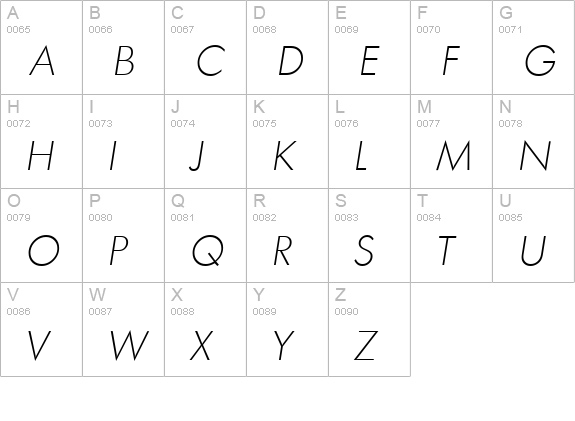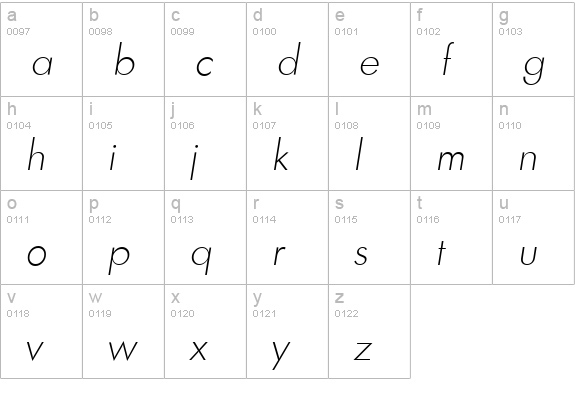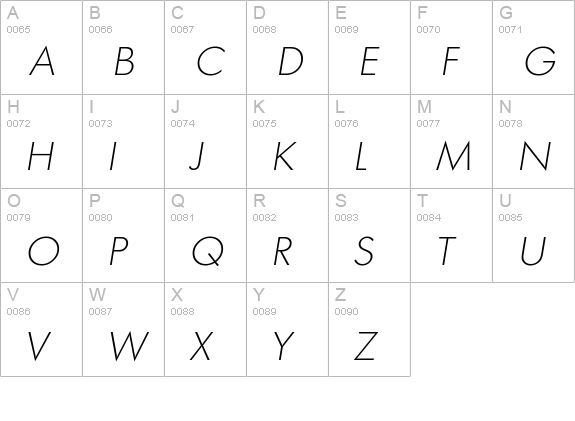
LimerickSerial-Xlight-Italic Font Details
LimerickSerial-Xlight-Italic is a distinctive, italic variant in the LimerickSerial typeface family \xE2\x80\x94 well suited to design and typography projects.
LimerickSerial-Xlight-Italic font is a stunning and elegant typeface that exudes sophistication and charm. With its delicate and graceful italic design, this font is perfect for adding a touch of elegance to any project. The slender and flowing letterforms of LimerickSerial-Xlight-Italic font make it ideal for use in various design applications, from invitations to branding materials. What's even better is that LimerickSerial-Xlight-Italic font is available for free download at FontsMarket.com. This means you can enhance your projects with this beautiful font without breaking the bank. So why wait? Download LimerickSerial-Xlight-Italic font today and elevate your designs with its timeless beauty and style.